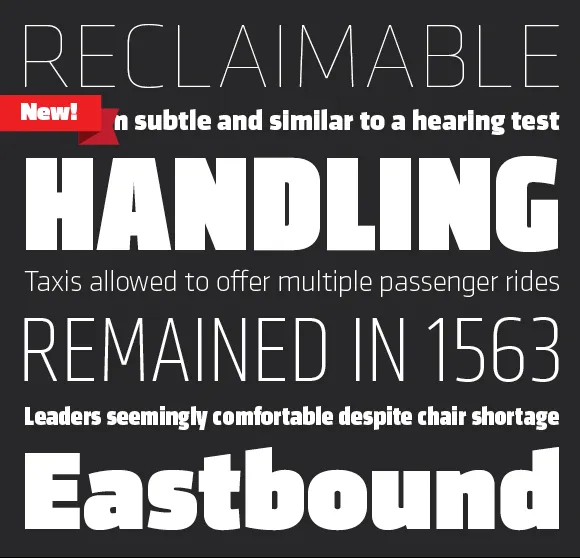
New Release: Klavika Display
Customers have asked and we’ve always agreed – why doesn’t Klavika have a Black weight? Or an Extra Light? Good questions. Those lead us to wonder, what about an Ultra Black or a Thin as well? Why not fully explore the weight range, expand on the original and add something new? Sounds like the start of a great project!
And with that, Klavika Display was born. Available in four weights – Thin, Extra Light, Black and Ultra Black – and two widths – Standard and Condensed – the family is an addition to the existing Klavika and Klavika Condensed families. Although designed as en extension of the original series, Klavika Display works equally well on its own as a boastful display font. Singles, packs and the complete family are available in both desktop and webfont formats.